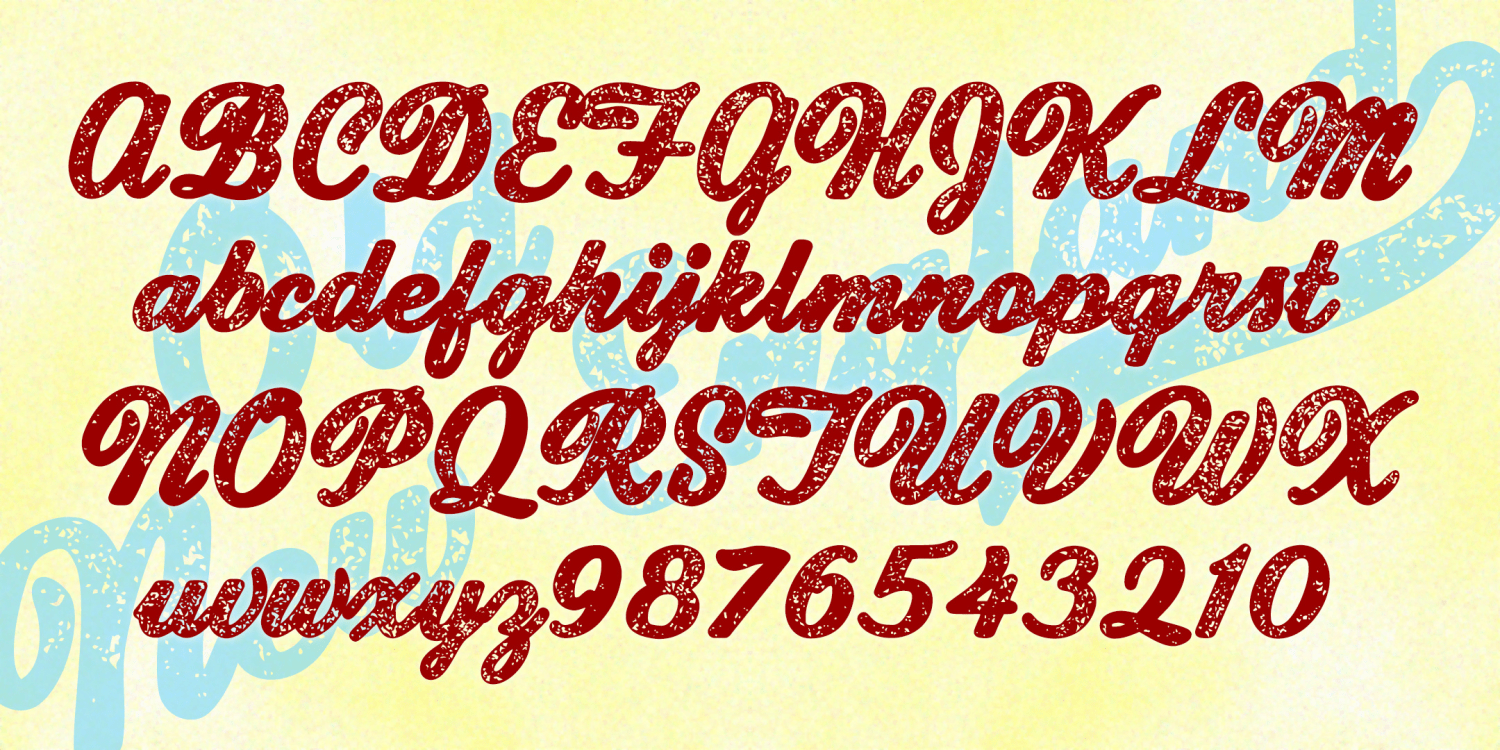
Old New England
Old New England is a bold and stylish script font with the rustic speckled texture of a well-worn T-shirt or vintage sign. It's a companion to New England, the lighter and smoother original. Also eems like a good choice for team jerseys, so I've included a final swash in the swung dash (~ ASCI tilde) position.
Old New England by Harold's Fonts